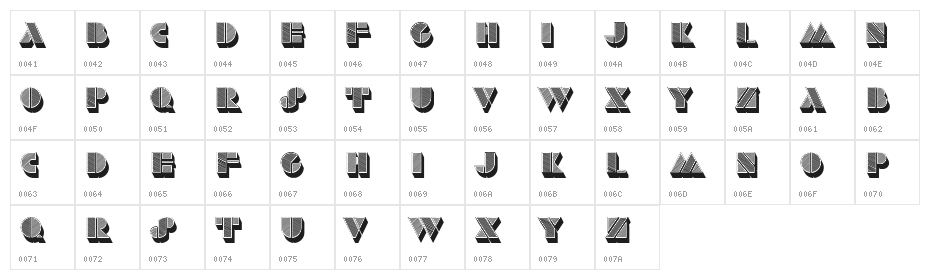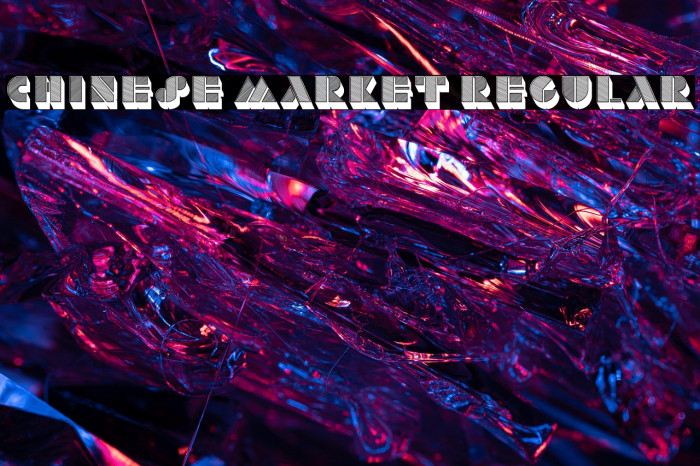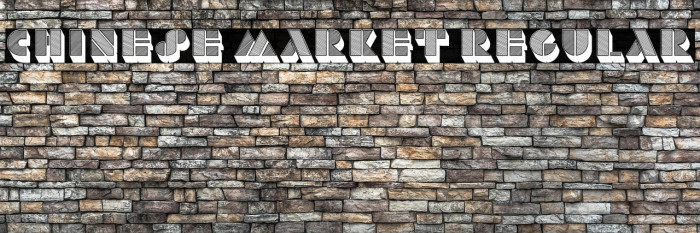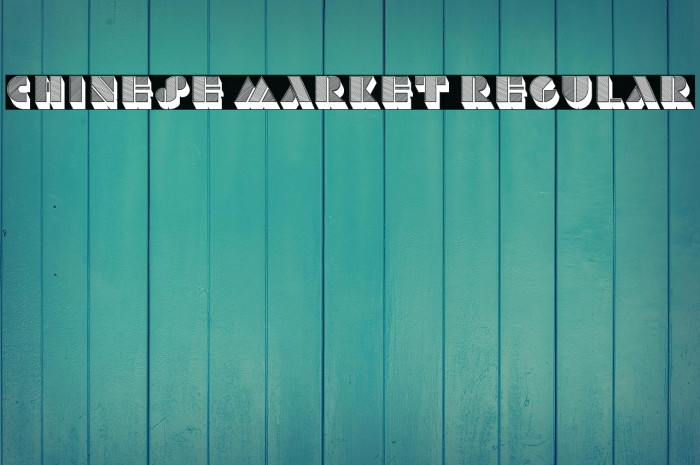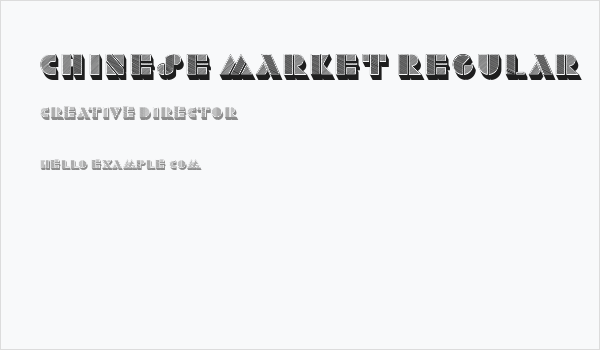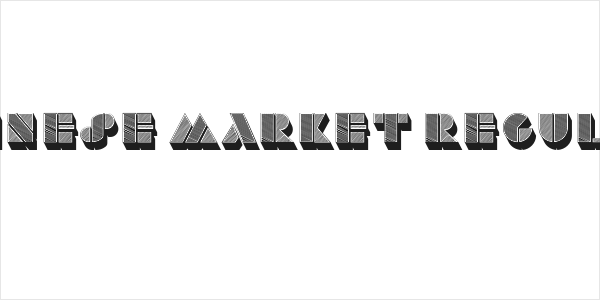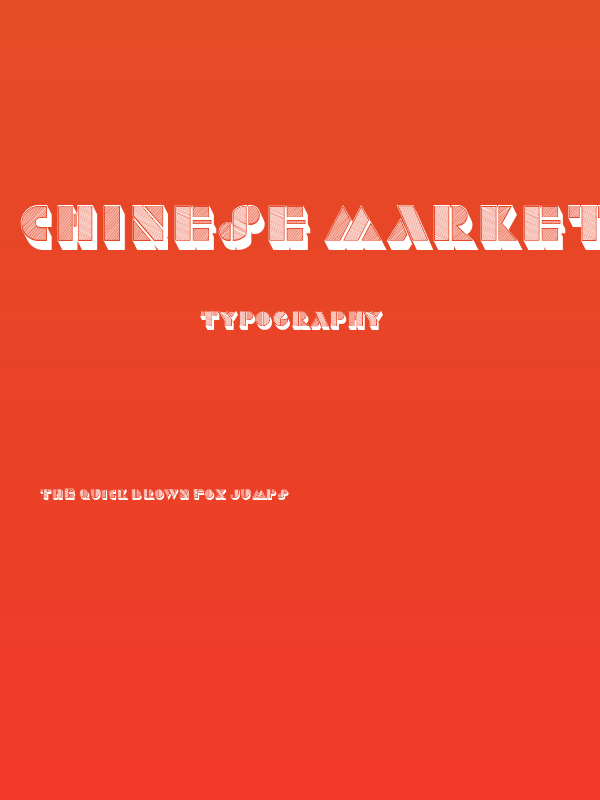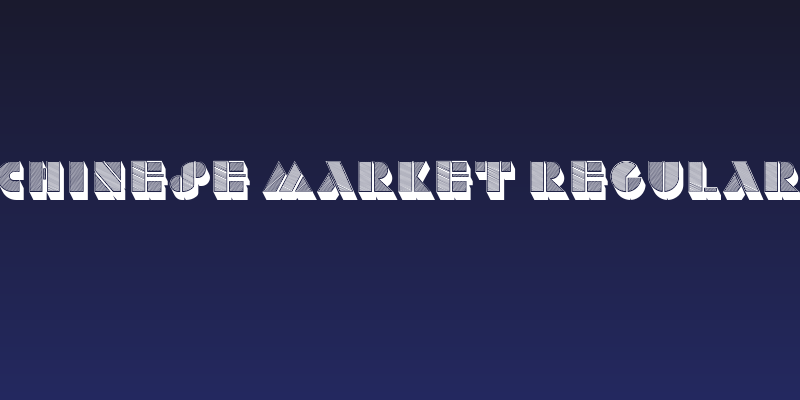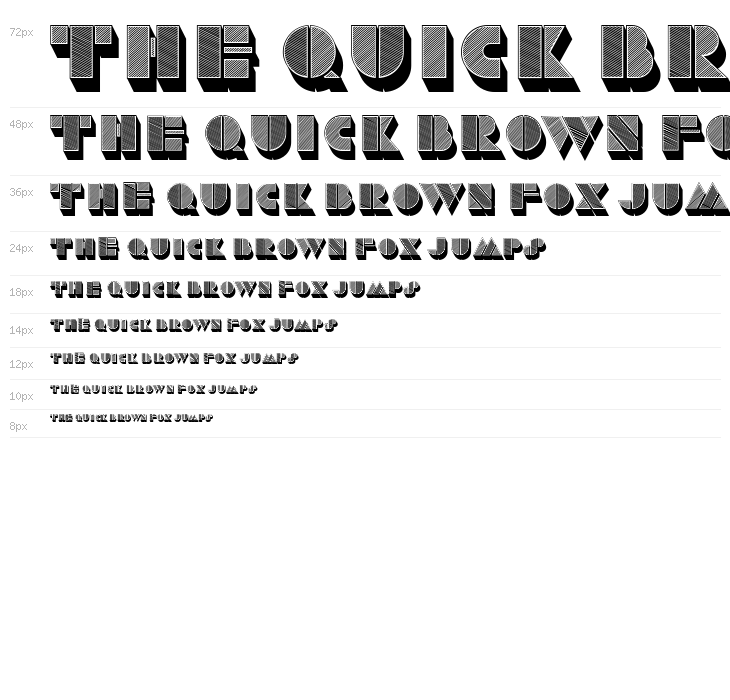
Chinese Market Regular Font
Chinese Market Regular Description
This font features a bold, three-dimensional design with a distinct shadow effect that gives each character a sense of depth and volume. The letters are constructed with a combination of solid and striped patterns, creating a dynamic and eye-catching appearance. The geometric shapes and sharp angles contribute to a modern and industrial aesthetic, making it suitable for projects that require a strong visual impact. The uppercase letters are uniform in height, and the overall design maintains consistency across the alphabet. This font is ideal for creating standout headlines, posters, and branding materials that demand attention.
| Proposed Projects | Ideal for posters, headlines, branding, and any design requiring a bold, modern look. |